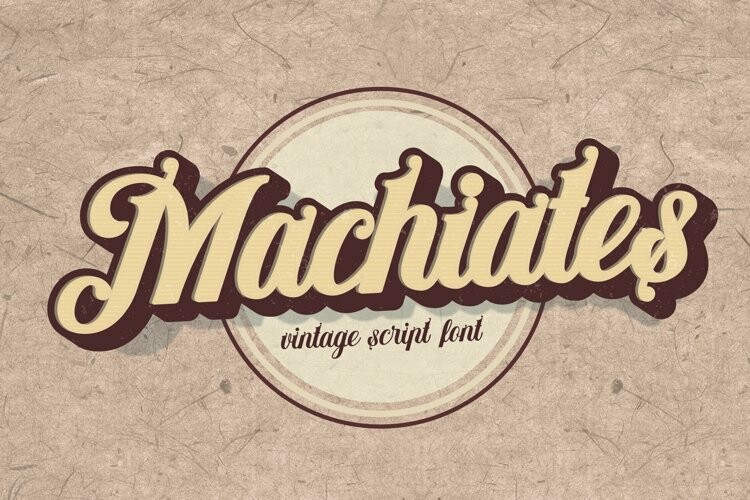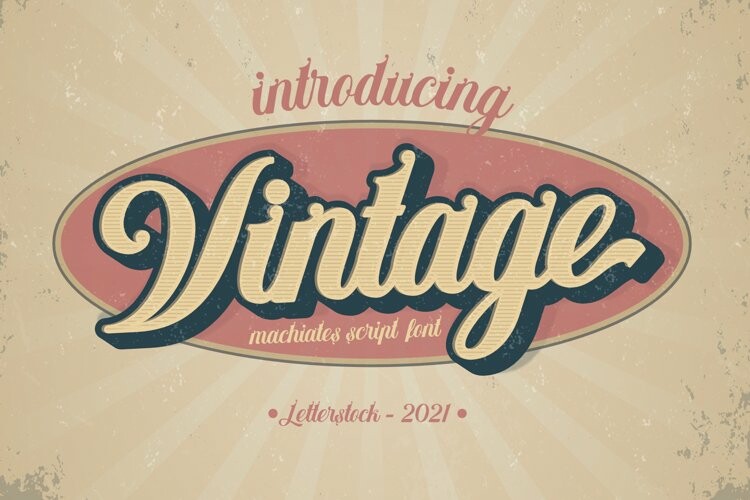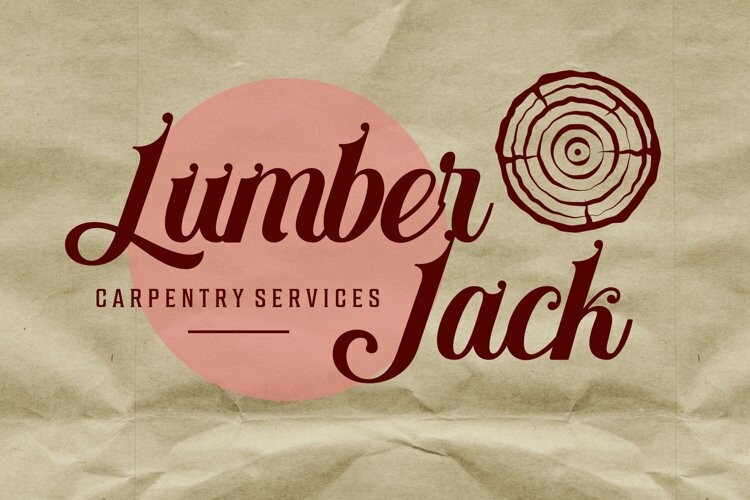
Machiates Font
Machiates FontThis pair was inspired by the retro motorbike poster design that i saw on some coffee shop, It was crafted by hand specially to add natural handmade feeling in its brand identity than i make it clean with pentool.